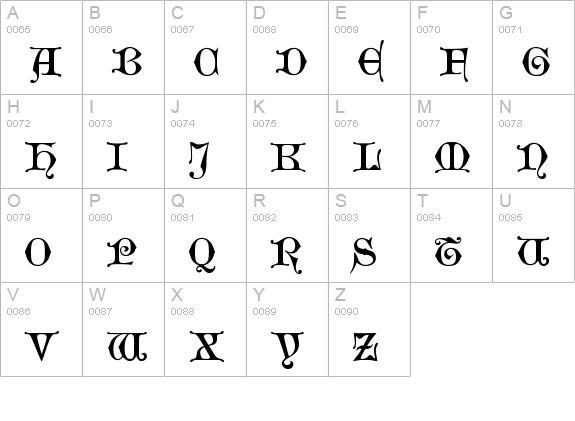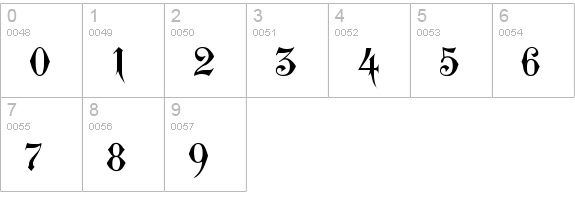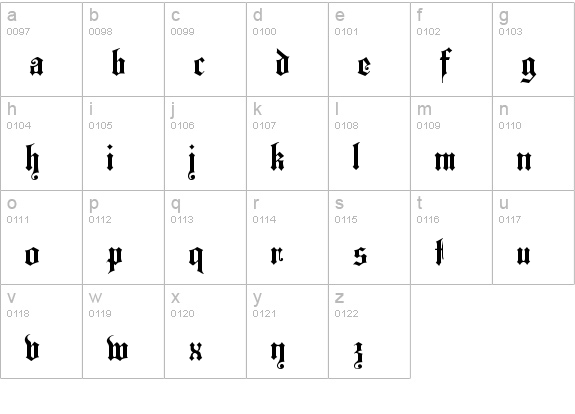
Westminster Gotisch Font Details
Westminster Gotisch is a stunning and elegant font that exudes a sense of grandeur and sophistication. With its intricate and ornate letterforms, this typeface captures the essence of Gothic architecture and design. Each character is meticulously crafted with sharp edges and delicate curves, creating a harmonious balance between classic and contemporary aesthetics. The timeless beauty of Westminster Gotisch makes it a versatile choice for a wide range of design projects. Whether you're designing a logo, creating a wedding invitation, or crafting a vintage-inspired poster, this font will effortlessly elevate your work to new heights of elegance and refinement. What sets Westminster Gotisch apart is not only its exquisite design, but also the fact that it is free. Yes, you read that right - this remarkable font is available to download for free from FontsMarket.com. Now, you can bring the charm and sophistication of Westminster Gotisch into your creative endeavors without any cost. Designed with utmost care and precision, Westminster Gotisch offers a wide range of uppercase and lowercase letters, numbers, punctuation marks, and special characters. Its extensive character set ensures that you have all the tools you need to create visually stunning and impactful designs. Whether you're a professional designer or a budding creative enthusiast, Westminster Gotisch is the perfect addition to your font library. Its versatility, elegance, and the fact that it is freely available to download at FontsMarket.com make it a must-have for any design project. So, don't miss out on this incredible opportunity to enhance your work with the timeless beauty of Westminster Gotisch.